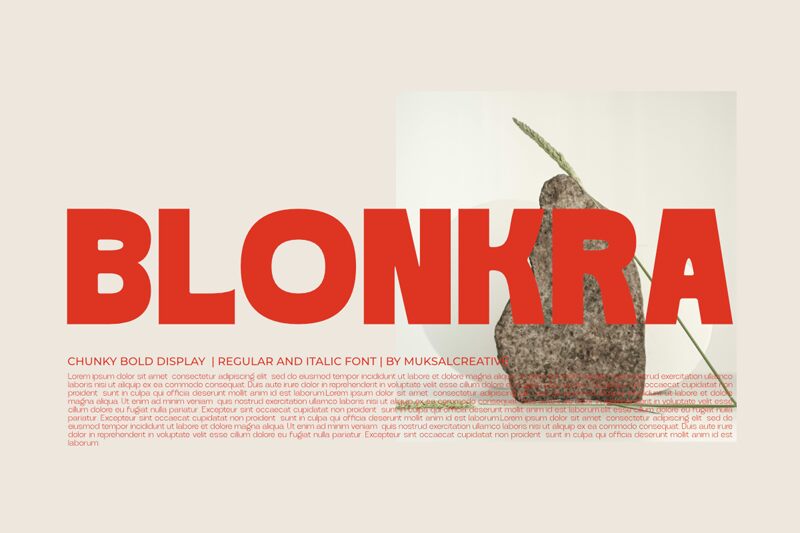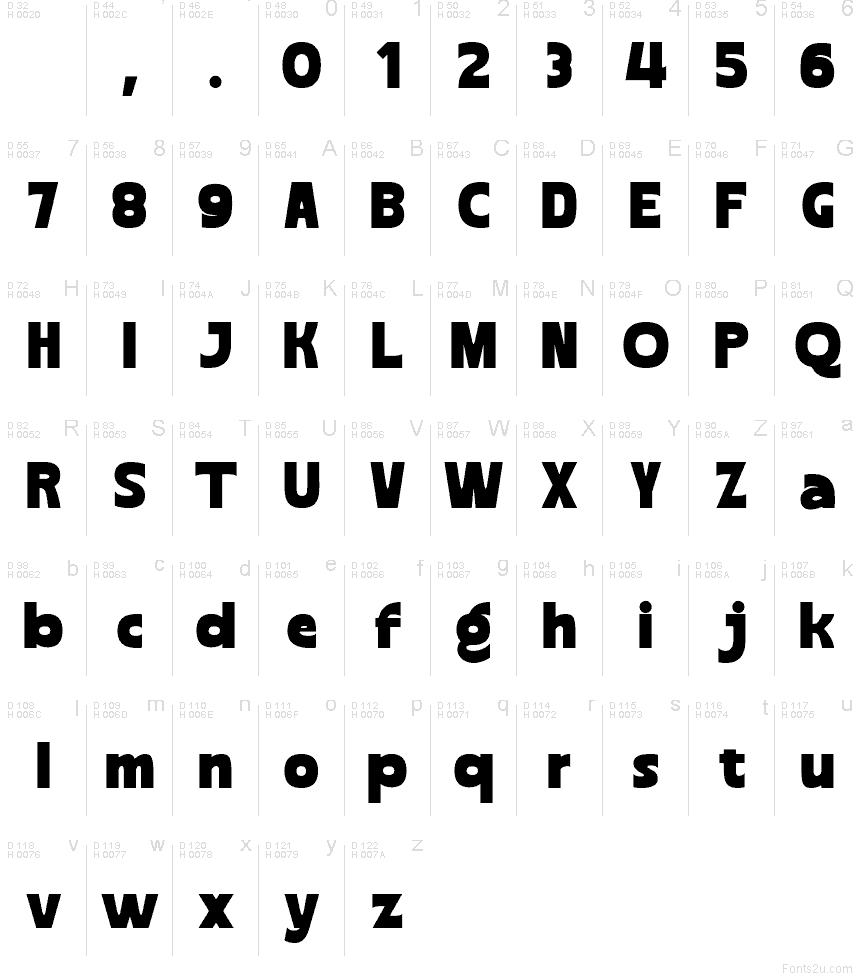
Blonkra by Muksal Creative is a free cartoon display font with big, bubbly letters and a cheerful, slightly clumsy bounce. Its heavy shapes, rounded corners, and soft notches give the font a toy-box feel, while the uneven rhythm keeps it playful instead of slick.
This free font suits snack packaging, kids' book covers, party invitations, comic-style headlines, and cheerful social posts where the lettering needs to feel friendly and loud. It also works well for short title cards and logo-style wordmarks, because the broad, puffy forms hold together as a simple shape even when the wording is brief.
Blonkra Regular font presentation and specimen